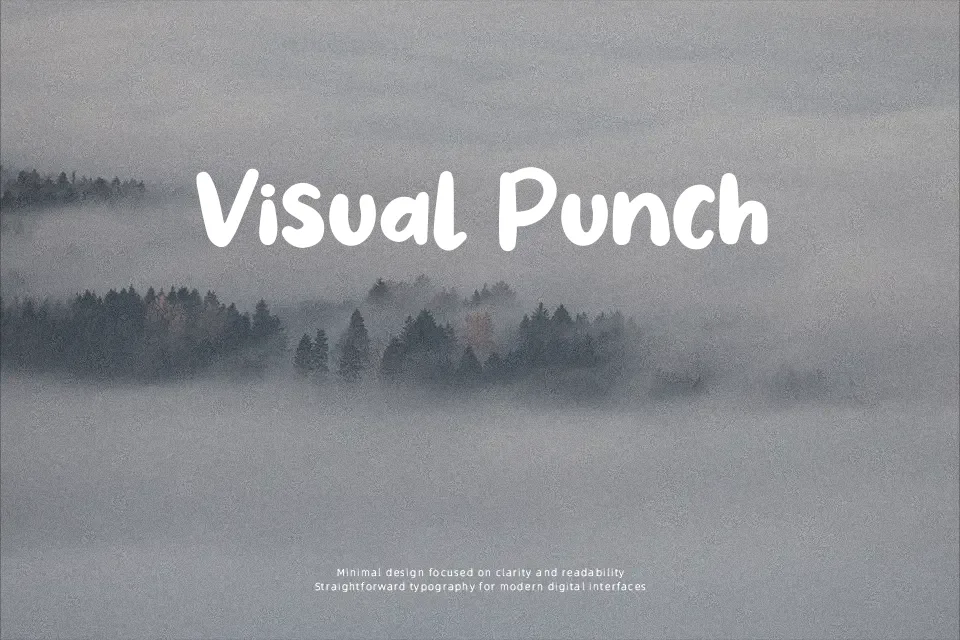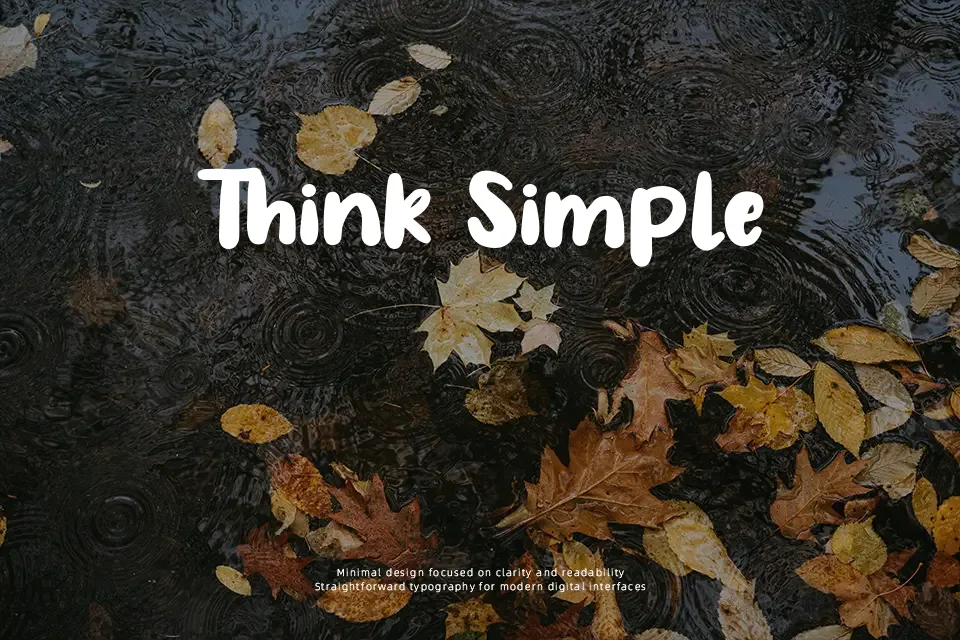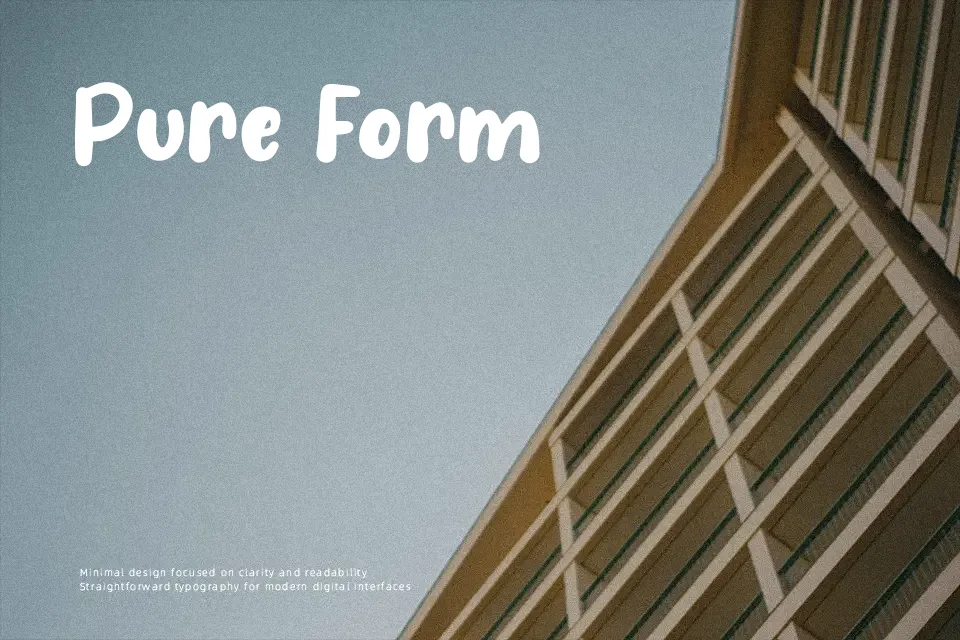
No Virus Font
No Virus Font uses an informal handwritten display approach with flowing strokes, varied letter shapes, and a lively visual rhythm. The letterforms are better suited to short, prominent wording than tightly structured text, giving titles and logo-style layouts a more personal appearance. Its proportions and decorative movement work well when there is enough space around the text. The design reads most clearly at larger sizes, where its stroke details remain visible. For practical use, it is a stronger choice for a headline or cover title than for paragraphs, captions, or information-heavy layouts.
Best For: poster headlines,book cover titles,logo treatments,social media graphics
Perfect for headline, logo, and poster, with a artistic and display style.